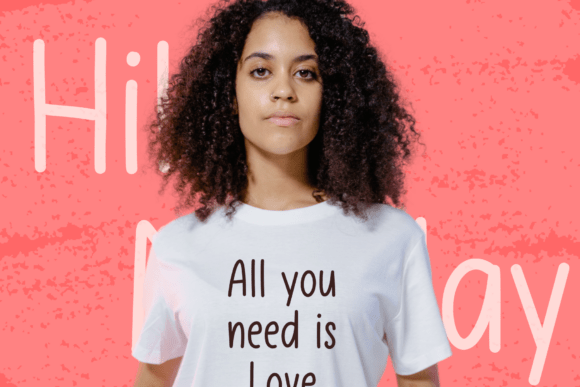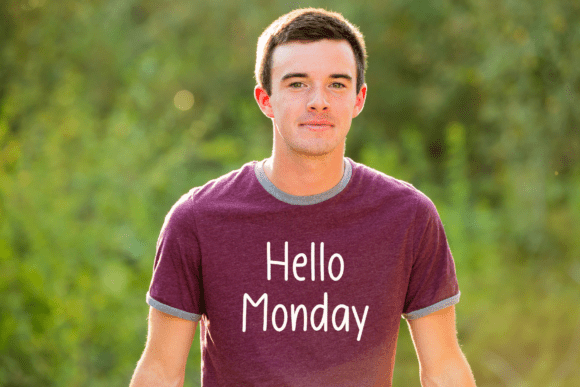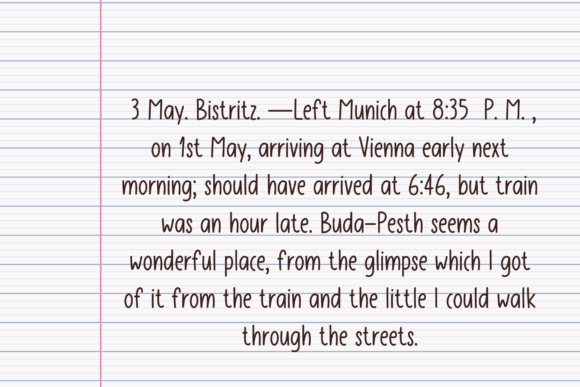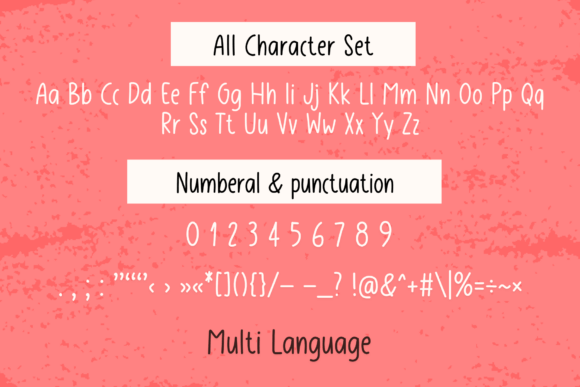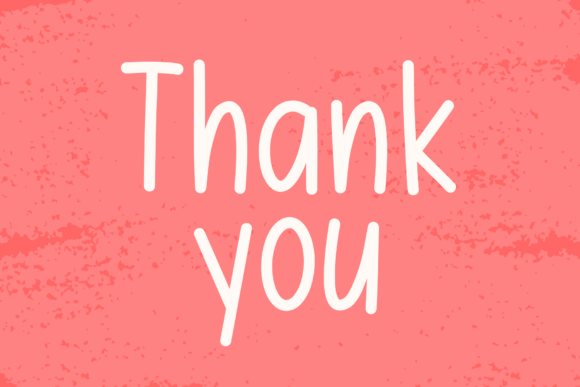
Introducing Grace Notes Font: The Perfect Handwritten Touch for Your Designs
Are you looking for a font that adds a touch of playfulness and authenticity to your designs? Look no further than Grace Notes Font! This beautiful handwritten font is perfect for a wide range of projects, from blog posts and logos to invitations, greeting cards, and more.
What is Grace Notes Font?
Grace Notes Font is a carefully crafted handwritten font that embodies the perfect blend of playfulness and elegance. Its unique and authentic style makes it an excellent choice for designers and crafters who want to add a personal touch to their work.
What Makes Grace Notes Font Special?
So, what sets Grace Notes Font apart from other fonts? Here are just a few reasons why it’s a standout:
- Playful and Authentic: Grace Notes Font has a carefree, handwritten feel that’s perfect for designs that need a personal touch.
- Versatile: This font is suitable for a wide range of projects, from digital designs to print materials.
- Elegant: Despite its playful nature, Grace Notes Font has an elegant quality that makes it perfect for more sophisticated designs.
Uses for Grace Notes Font
The possibilities are endless when it comes to using Grace Notes Font! Here are some ideas to get you started:
- Blog Posts: Add a personal touch to your blog posts with Grace Notes Font. It’s perfect for headings, subheadings, and even body text.
- Logos and Branding: Create a unique and memorable logo with Grace Notes Font. Its playful yet elegant style makes it perfect for businesses that want to stand out.
- Invitations and Greeting Cards: Add a touch of warmth and personality to your invitations and greeting cards with Grace Notes Font.
- Planners and Photo Albums: Use Grace Notes Font to add a personal touch to your planners, photo albums, and other scrapbooking projects.
- Decorations: Create beautiful decorations, such as wall art, signs, and banners, with Grace Notes Font.
Tips for Using Grace Notes Font
Here are some tips for getting the most out of Grace Notes Font:
- Experiment with Sizes: Try out different font sizes to see how Grace Notes Font looks in various contexts.
- Pair with Other Fonts: Combine Grace Notes Font with other fonts to create a unique and interesting look.
- Use for Headings and Subheadings: Use Grace Notes Font for headings and subheadings to add visual interest to your designs.
In conclusion, Grace Notes Font is a versatile and beautiful handwritten font that’s perfect for designers and crafters. Its playful and authentic style makes it suitable for a wide range of projects, from digital designs to print materials. With its elegant quality and carefree feel, Grace Notes Font is sure to become a favorite in your design toolkit.